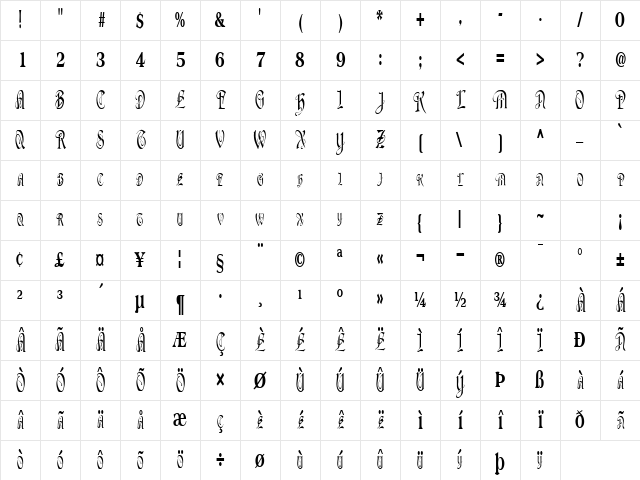
Port Regular
Port Family
Port Regular
Design Context for Port
Port is a composed and adaptable typeface that performs quietly and consistently across a wide range of design contexts.